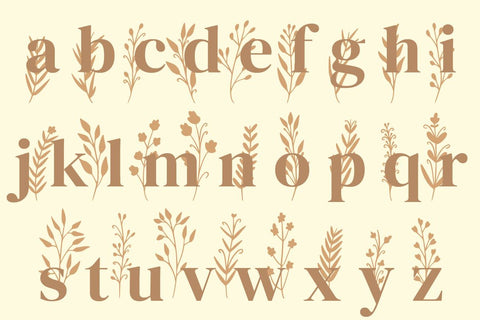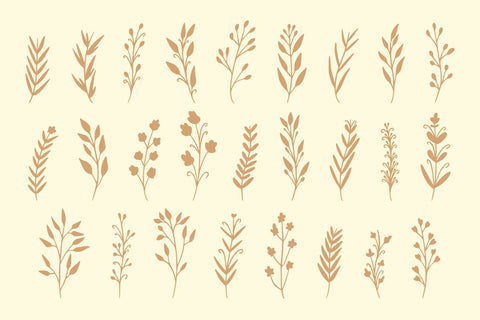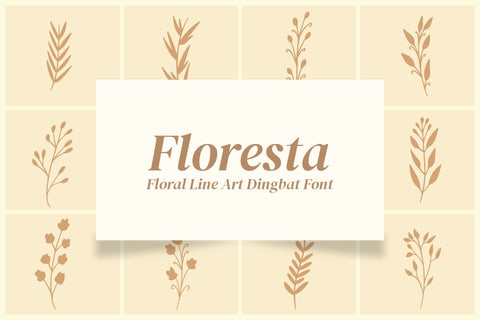
Floresta - Botanical Dingbat Font
Florista is a dingbat font with a floral and line art style. This font is made with original hand drawn sketches. This font is perfect for weddings, decorations, logos, cosmetics, etc.